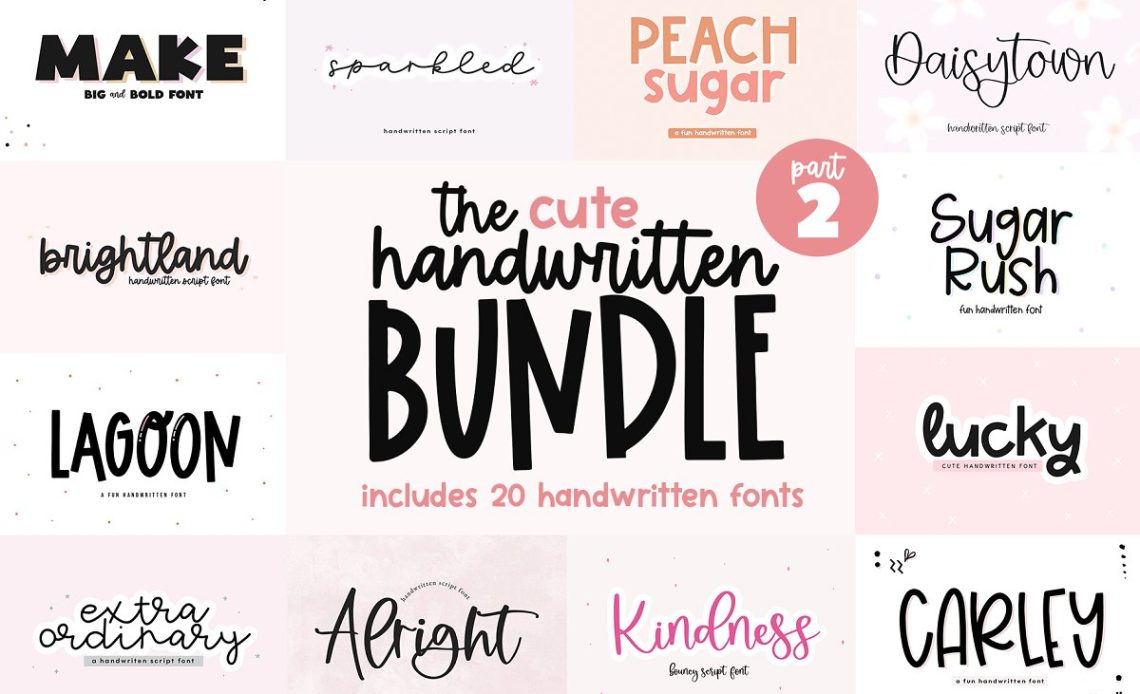
Are you looking for the perfect font to elevate your designs and make them stand out? Look no further than the Cute Handwritten Font Bundle Vol. 2! Created by the talented Kaitlynn Albani, this collection of handpicked fonts is sure to inspire creativity and capture attention.
Featuring a little bit of everything, along with some exciting new fonts, this bundle includes 20 fonts that are perfect for all your design projects. Whether you're working on SVG designs, shirts, stickers, social media posts, quotes, logos, or even Cricut designs, these fonts will take your work to the next level.
Each font in this bundle has been carefully crafted to ensure they are not only visually appealing but also easy to read. With a mix of playful and elegant scripts, you can add a touch of personality and charm to your designs.
The Cute Handwritten Font Bundle Vol. 2 includes popular fonts like Brightland, Sugar Rush, and Extraordinary, as well as lesser-known gems like Pink Pear, Lucky, and Wishful Thinking. And with the limited time offer of 20 fonts, you're getting an incredible deal on some of the best fonts for logos Reddit has to offer.